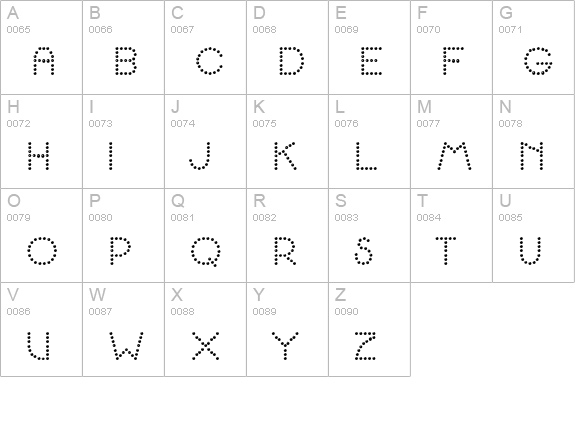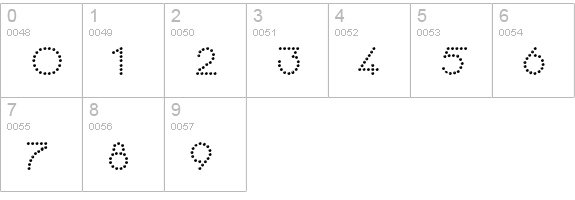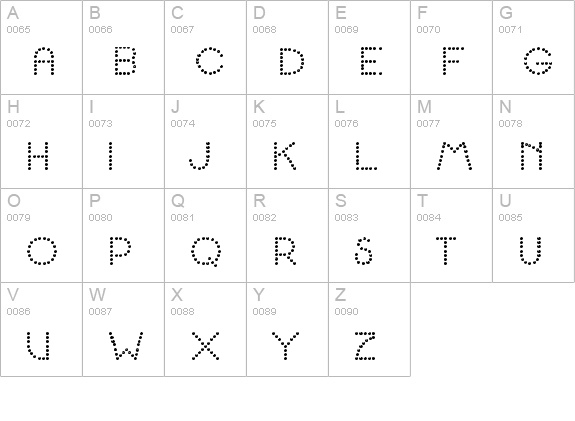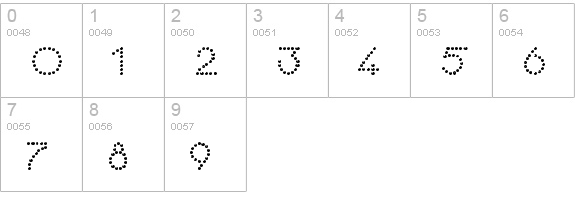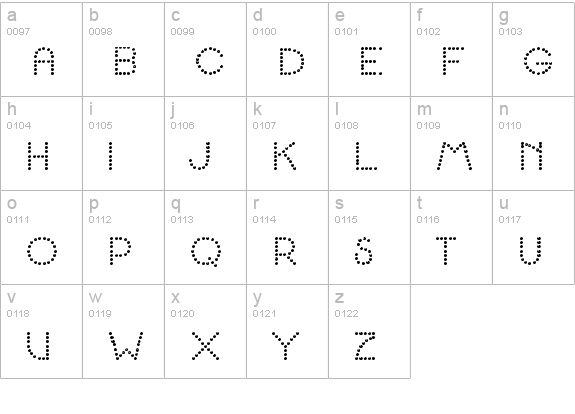
K22 Spotty Face Font Details
K22 Spotty Face font is a fun and playful typeface that is sure to add a touch of whimsy to any design project. With its irregularly shaped letters and spotty texture, this font exudes a cheerful and energetic vibe. It is perfect for creating eye-catching headlines, posters, logos, and more. What makes K22 Spotty Face font even more appealing is the fact that it is available to download for free at FontsMarket.com. This means that you can easily access this unique font without breaking the bank. Whether you're a professional designer or just someone who enjoys experimenting with typography, this free font is a must-have in your collection. The irregular spots and shapes in K22 Spotty Face font give it a distinct and playful character. It is reminiscent of a child's doodles, adding a sense of innocence and joy to any design. The irregularity in the letterforms also adds a touch of handcrafted charm, making it an excellent choice for projects that require a personal and unique touch. K22 Spotty Face font is highly versatile and can be used in a variety of creative projects. From children's book illustrations to website designs, this font will bring a sense of fun and excitement to your work. Its bold and legible letterforms ensure that your message is conveyed with clarity, while its spotty texture adds visual interest and depth. With its free availability on FontsMarket.com, there's no reason not to add K22 Spotty Face font to your font library. Whether you're designing for print or digital media, this font will inject a dose of playfulness into your creations. So go ahead and download K22 Spotty Face font today and let your imagination run wild!